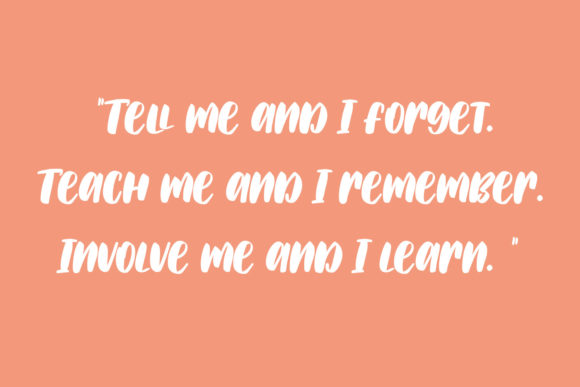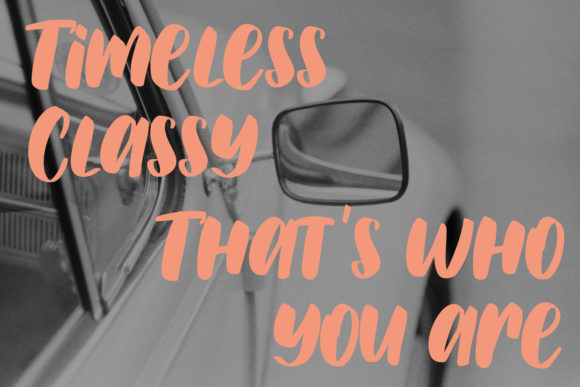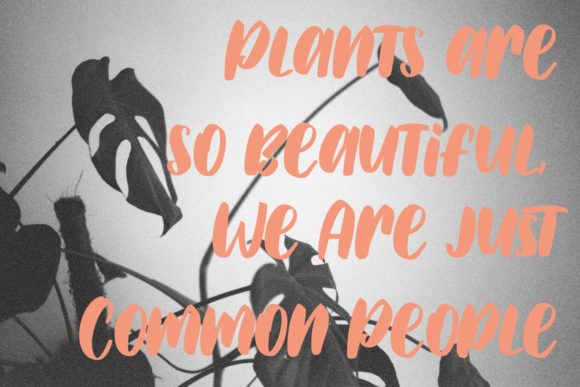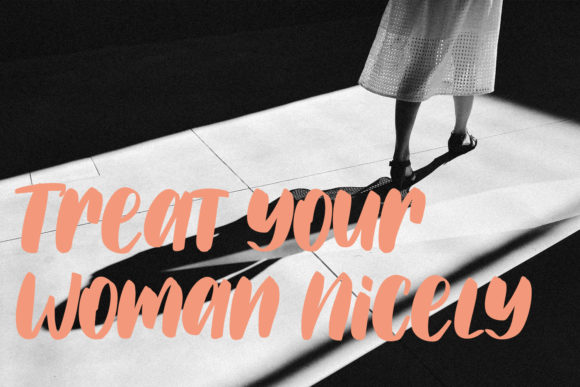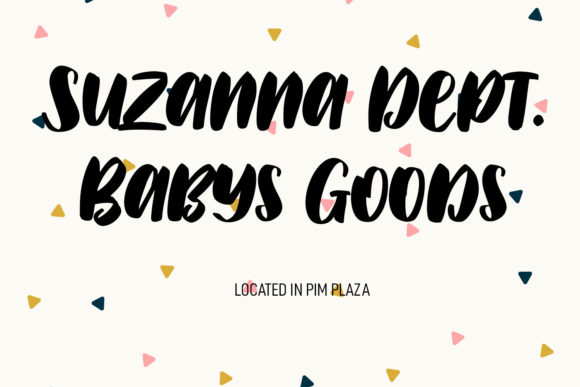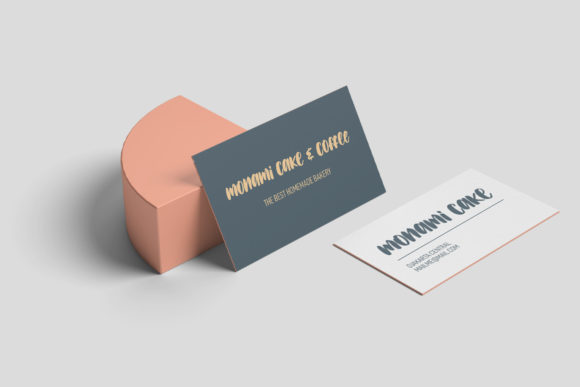
Introduction to Railstone Font
Do you remember the thrill of discovering that perfect font to elevate your design project? For many designers, it’s a moment of pure joy, a spark that ignites creativity and sets their imagination ablaze. And today, we’re excited to introduce you to the Railstone Font, a stunning display font that’s sure to add a touch of magic to your next creative endeavor.
With its thick, bold letters and playful vibe, the Railstone Font is the perfect addition to any design project. Whether you’re working on a logo, a social media campaign, or a marketing brochure, this beautiful font is sure to make your design stand out from the crowd. And the best part? It’s available for free download, making it a valuable resource for designers of all levels.
Key Features of Railstone Font
- Unique, modern design with a rugged texture, perfect for industrial or outdoor-themed projects
Honest Review: Railstone Font
I recently stumbled upon the Railstone Font and I have to say, I’m impressed. As a designer, I’m always on the lookout for high-quality design resources that can elevate my creative projects. The Railstone Font is definitely one of them.
- ✨ Beautifully crafted letters with a distressed, vintage feel
- ✨ Extremely versatile and can be used for a wide range of creative projects, from logos to posters
- ⚠️ Limited font sizes and styles available, which might not be ideal for more complex design projects
- ⚠️ The font’s distressed feel can sometimes be overpowering, making it difficult to read in certain contexts
Overall, I’d say the Railstone Font is a solid addition to any designer’s toolkit. While it may have its limitations, its unique style and high-quality images make it a valuable resource for creative projects. I’ll definitely be keeping it in mind for future designs.
Railstone Font
Introduction to Railstone Font
Railstone Font is a high-quality design resource that can elevate your creative project to the next level. This versatile font is available for free download and can be easily integrated into various design platforms.
Tips for Getting the Most Out of Railstone Font
To get the most out of Railstone Font, use it in conjunction with a transparent background to create a clean and modern design. Experiment with different font sizes, colors, and styles to add depth and interest to your project.
Common Use Cases for Railstone Font
Railstone Font is ideal for use in creative projects such as branding, marketing materials, and social media graphics. It’s also perfect for use in presentations, reports, and documents where a high-quality font is required.
Comparison: Museo shares some similarities with Railstone Font in terms of its elegant design, but it’s a more modern and sophisticated font.
What is the recommended font size for the Railstone Font in a creative project?
The recommended font size for the Railstone Font will depend on the specific design requirements of your project. However, as a general guideline, we recommend using font sizes between 12 and 24 points for body text, and 48 points or larger for headings. You can adjust the font size as needed to achieve the desired visual effect in your design project.